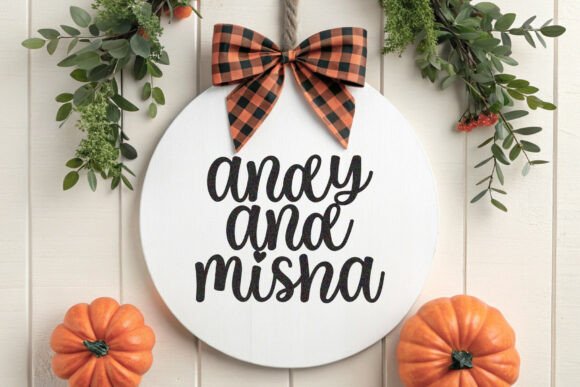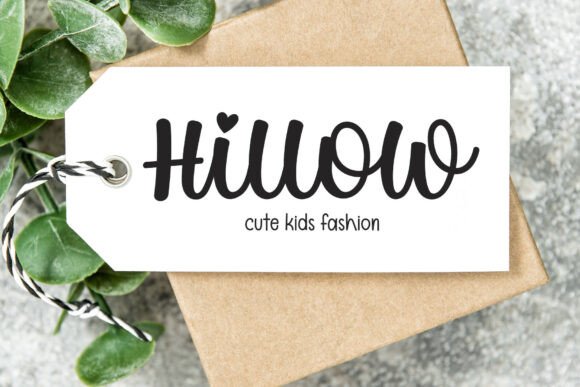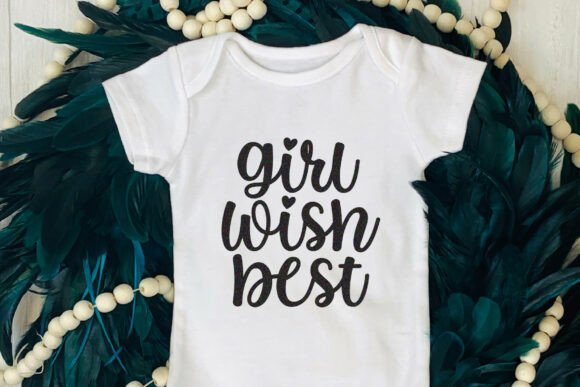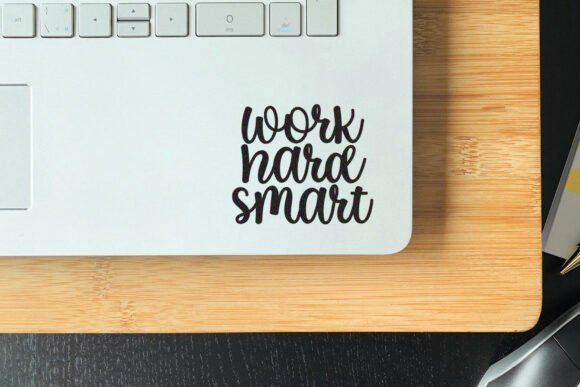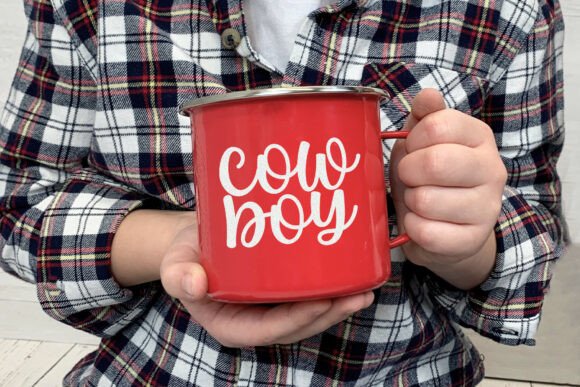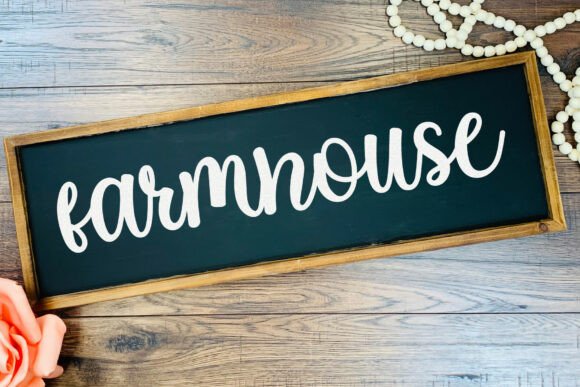
Shining Winter Font: A Delightful Design Companion
Remember that moment when you’re brainstorming ideas for your next creative project, and the perfect font is just out of reach? It’s a frustrating feeling, especially when you know that the right typography can make all the difference in bringing your vision to life. That’s why we’re excited to introduce you to the Shining Winter Font, a charming and versatile typeface that’s sure to become your new design BFF.
With its smooth curves, friendly rounded shapes, and playful heart details, Shining Winter Font is the perfect addition to any design resource. Whether you’re working on a greeting card, social media design, or children’s product, this high-quality font is sure to add a touch of warmth and personality to your creative project. And the best part? It’s available for free download, making it a valuable asset for designers of all levels.
So why settle for a generic font when you can shine with Shining Winter Font? This delightful design companion is ready to elevate your next project to new heights, with its transparent background and clear, even spacing that’s perfect for any creative endeavor.
Key Features of Shining Winter Font
- High-quality design resource perfect for creative projects, with a transparent background for seamless integration.
- Features a unique, elegant script style with intricate details, making it ideal for winter-themed designs, invitations, and greeting cards.
- Includes a range of characters, including uppercase and lowercase letters, numbers, and punctuation marks, for comprehensive use in creative projects.
Honest Review: Shining Winter Font
I recently stumbled upon the Shining Winter Font, and I must say it’s a lovely addition to any design resource collection. The font is perfect for winter-themed projects or anything that requires a touch of frosty elegance.
Here are some things that work well about this font:
- ✨ Beautiful, high-quality design that captures the essence of winter
- ✨ Suitable for a variety of creative projects, from invitations to social media graphics
- ⚠️ The font doesn’t come with a transparent background option, which might limit its use in certain design scenarios
- ⚠️ Some characters may not be as detailed or nuanced as others, which could affect overall text legibility
Overall, I think the Shining Winter Font is a great choice for designers who need a free, high-quality font for winter-themed projects. While it has its limitations, the font’s beauty and versatility make it a valuable addition to any design resource collection.
Getting the Most Out of Shining Winter Font
For the best results, use the Shining Winter Font in conjunction with high-quality images and a clear, concise message. Experiment with different font sizes and colors to create a visually appealing design.
The Shining Winter Font is perfect for:
- Winter-themed designs (e.g., holiday cards, winter landscapes).
- Fashion designs (e.g., winter clothing, accessories).
- Food designs (e.g., winter-themed desserts, beverages).